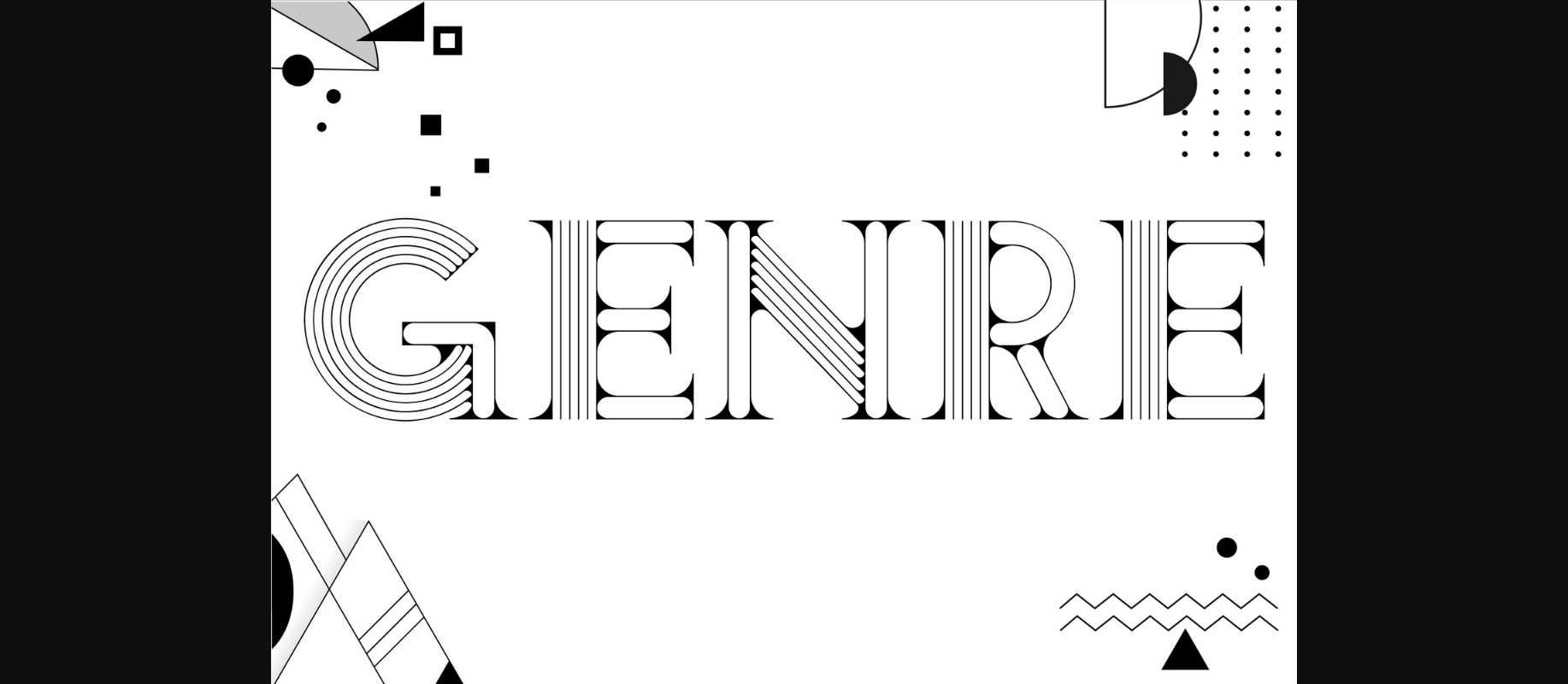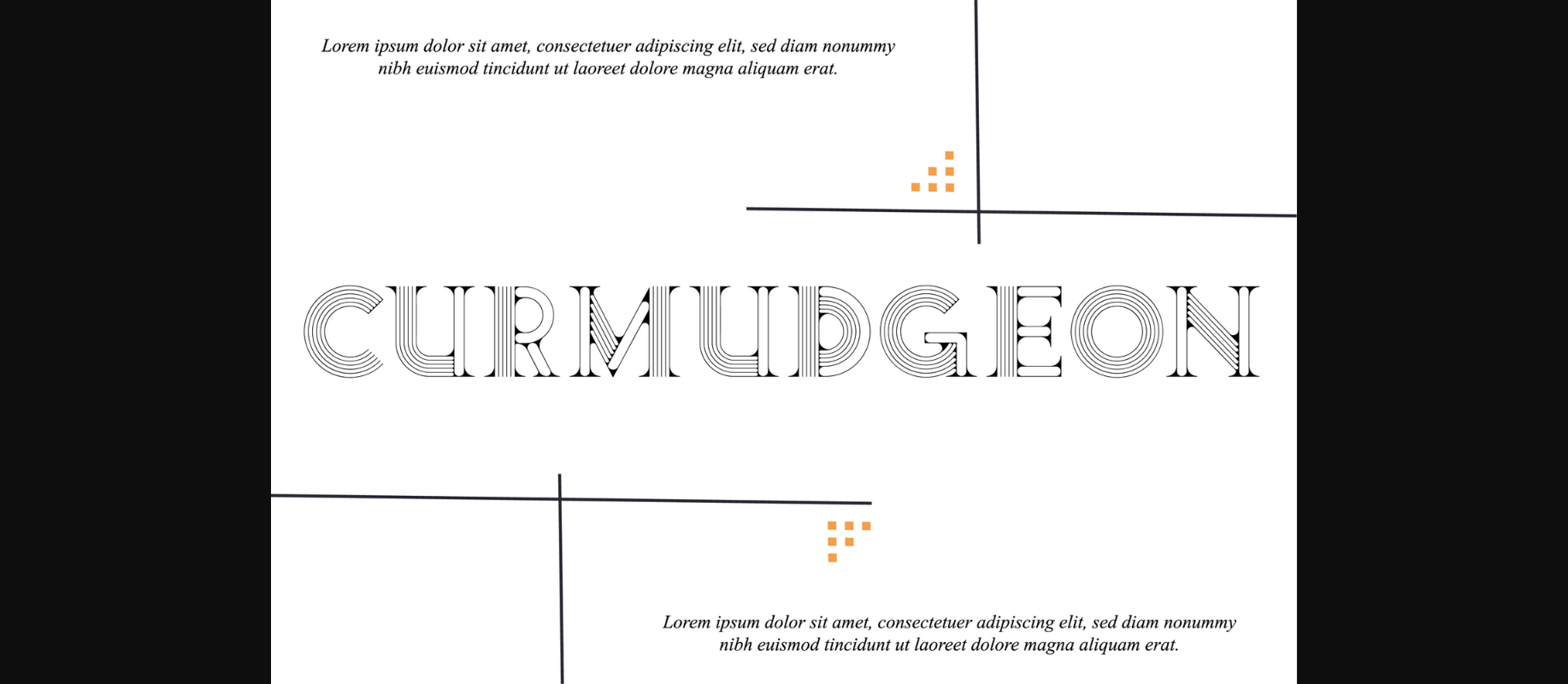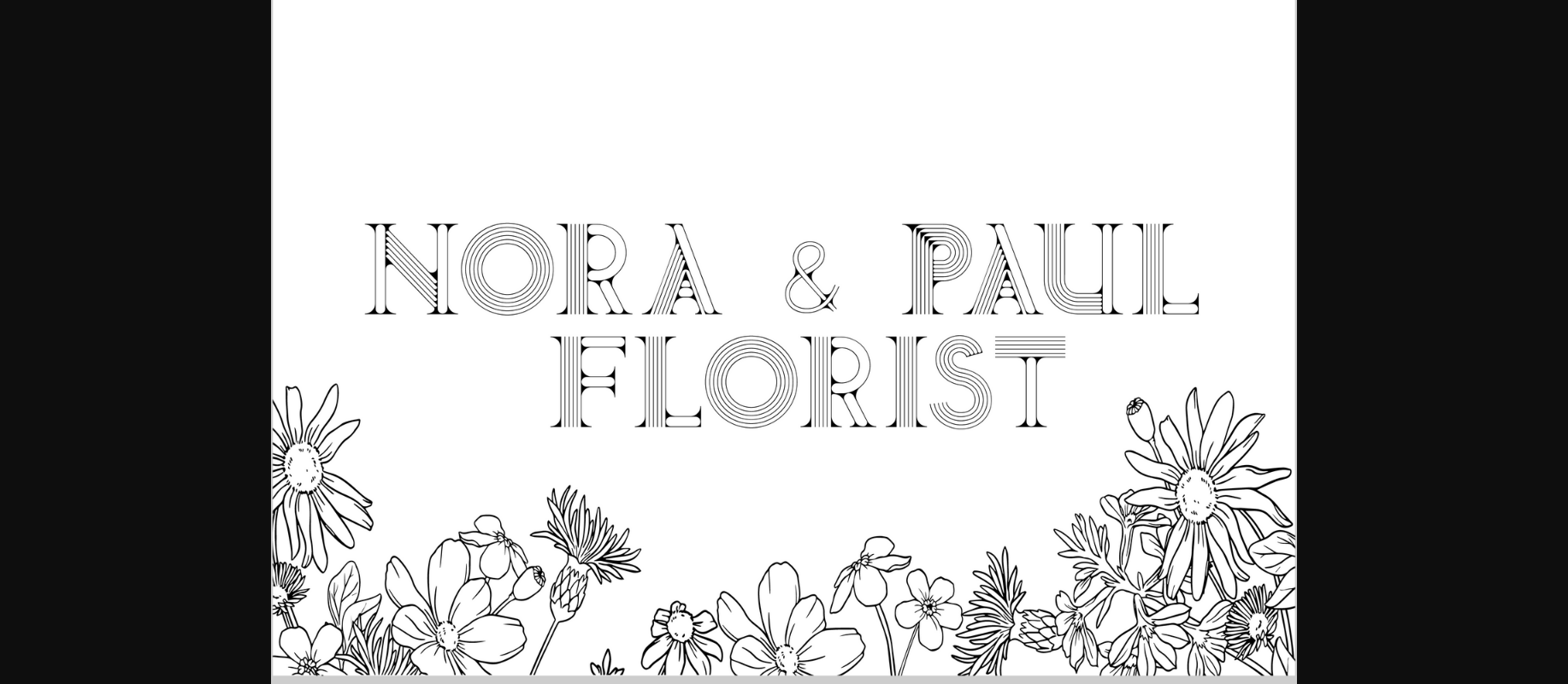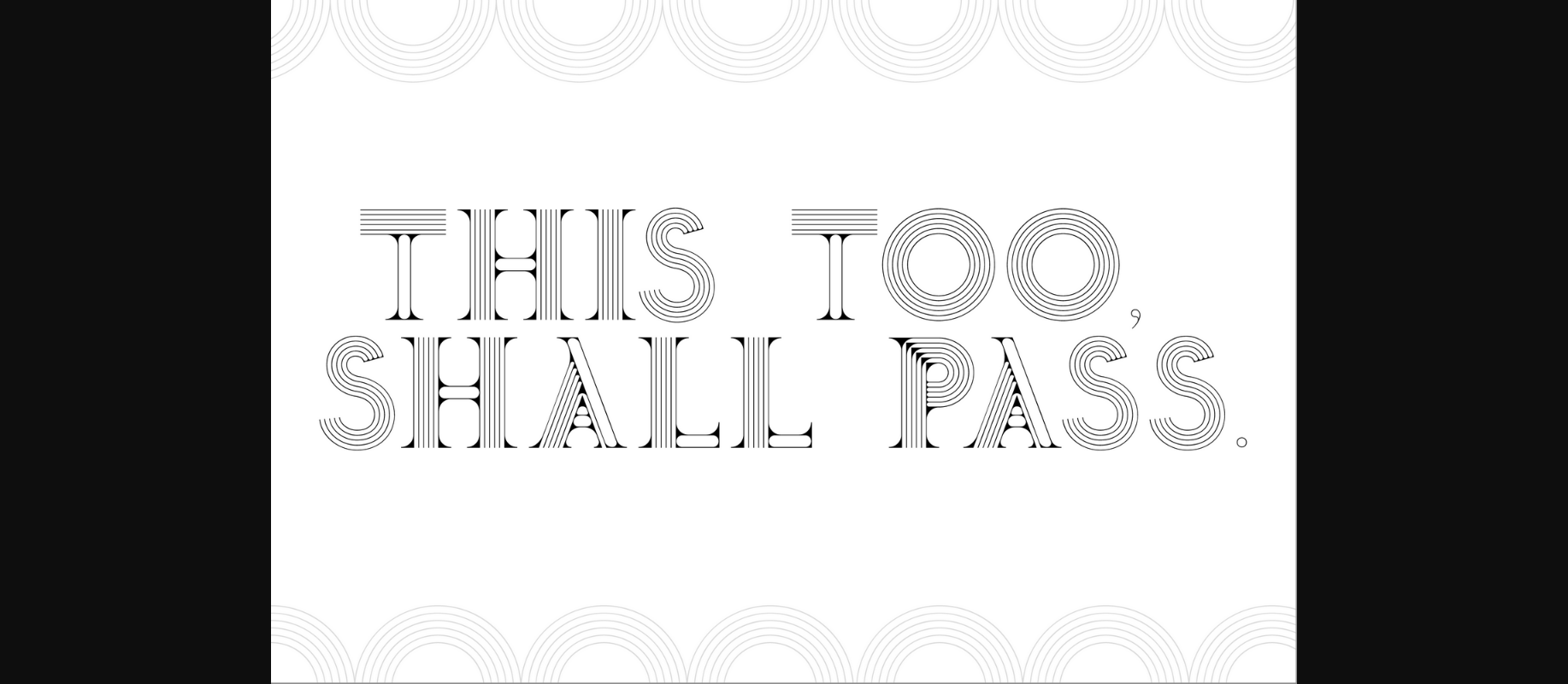
About Genre Line Font
Genre Line Font was inspired by the art deco style. It’s a minimalistic and thin font inspired by tribal aesthetics and decorated with geometric patterns. It’s suitable for craft products branding and packaging (needlework, minimal clothing, organic food), tourism products, surface design, music albums, typographic posters, etc. Use individual letters and symbols to create logos and monograms.